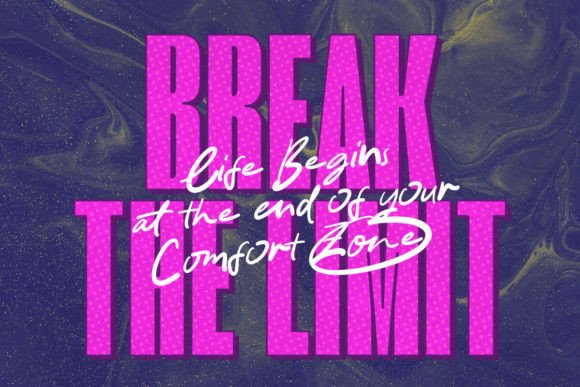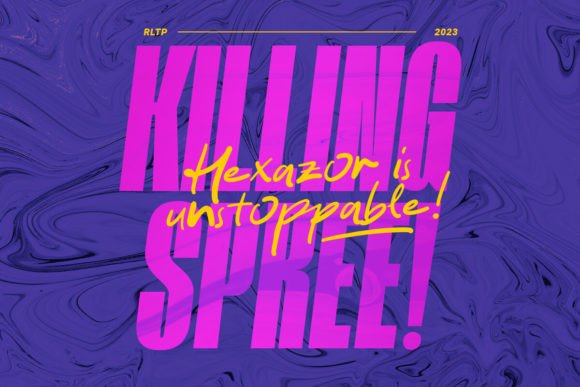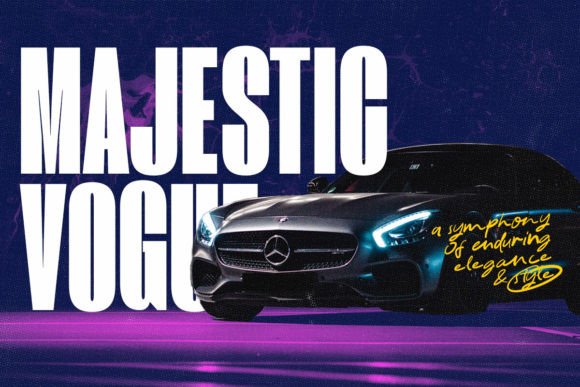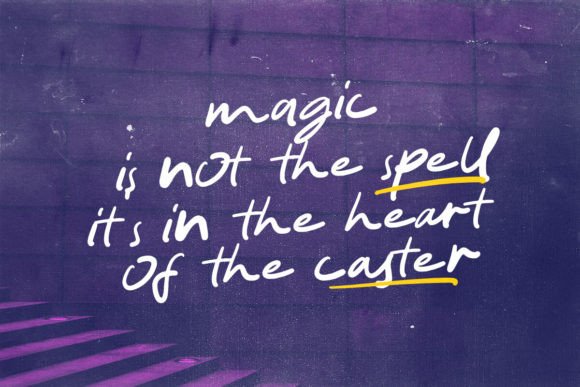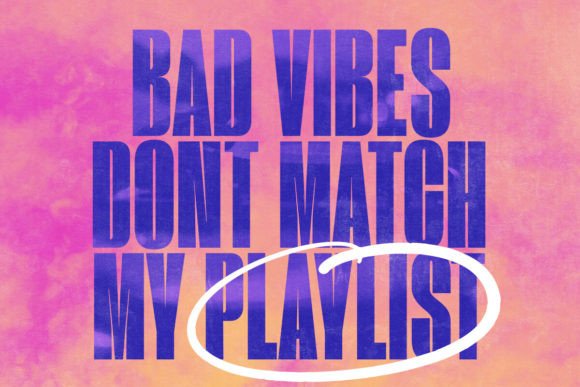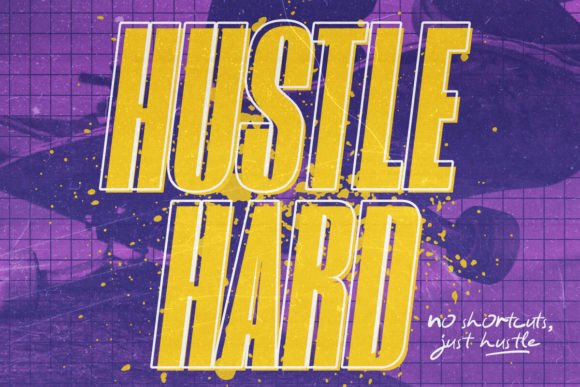
Introduction to Mondriel Font
Introducing “Mondriel,” a dynamic font duo that seamlessly blends the sophistication of a condensed sans-serif with the personal touch of a handwritten font.
This duo is a harmonious combination of modernity and individuality, offering a versatile typographic solution for various design projects The condensed sans-serif provides a sleek and contemporary feel, while the handwritten font adds a human touch, making your designs stand out with a perfect balance.
Key Features of Mondriel Font